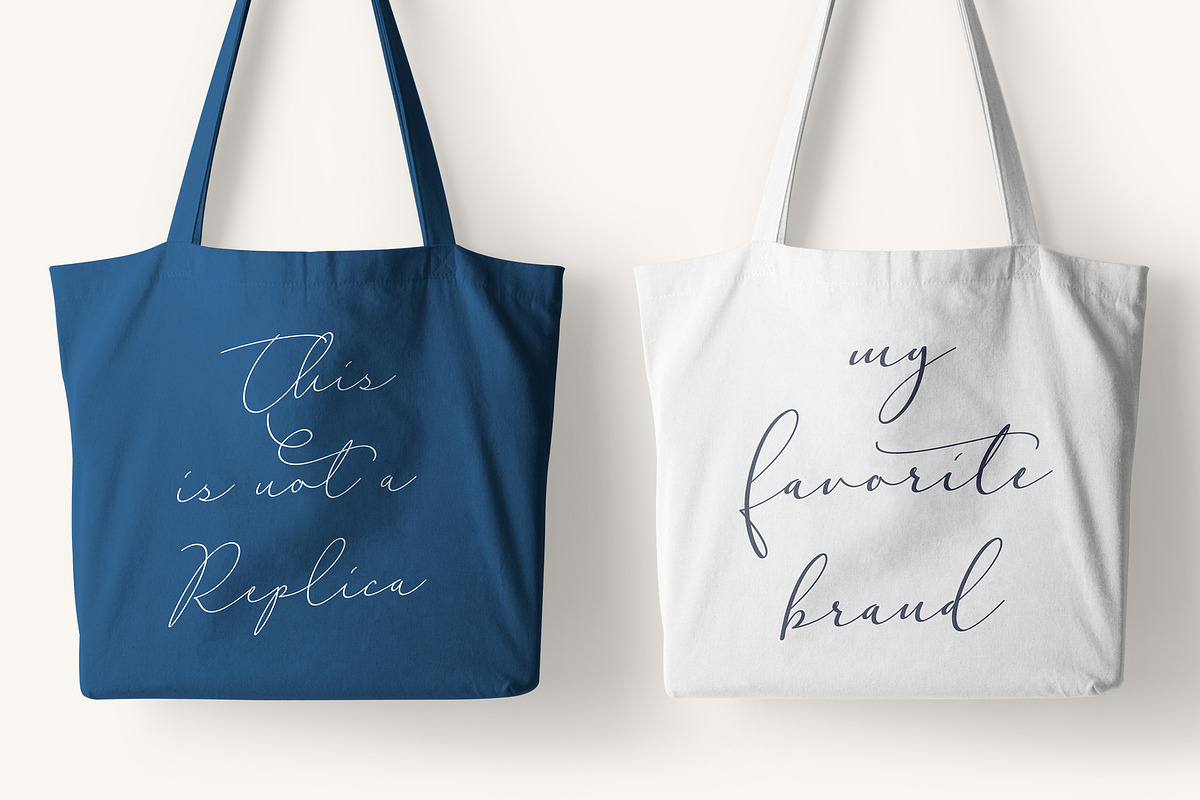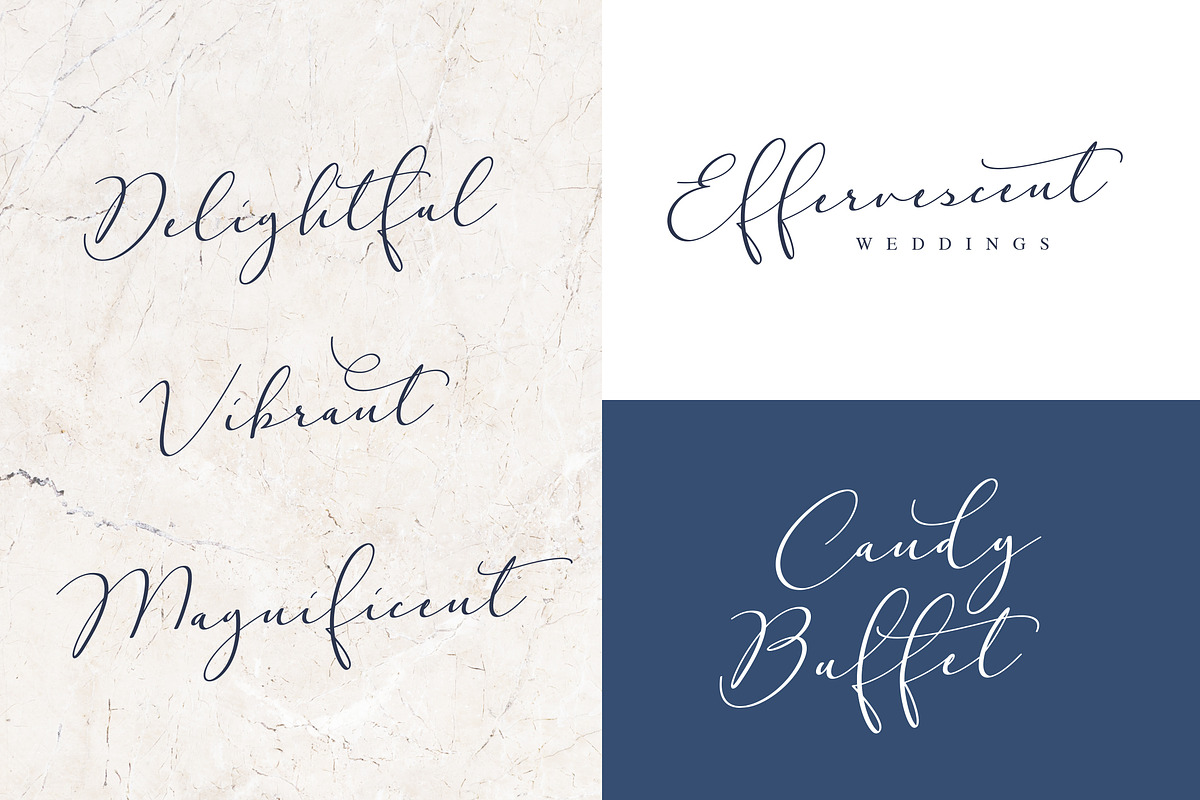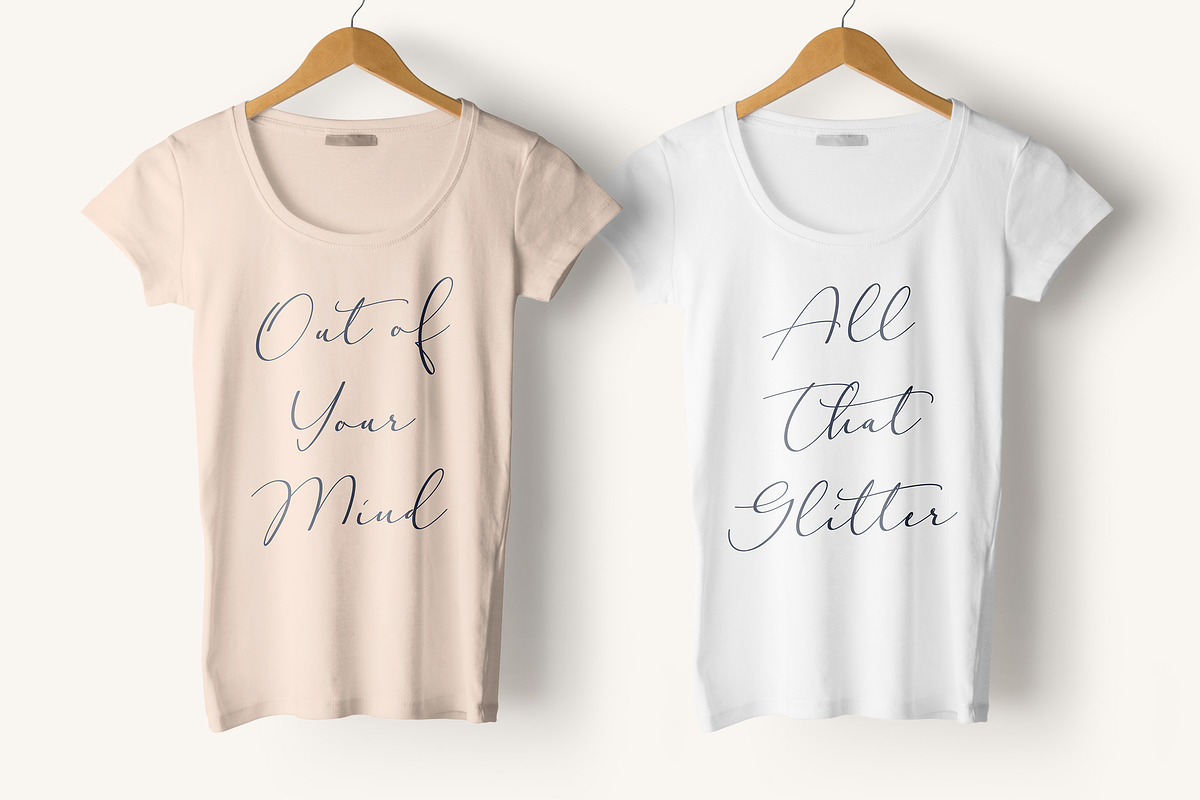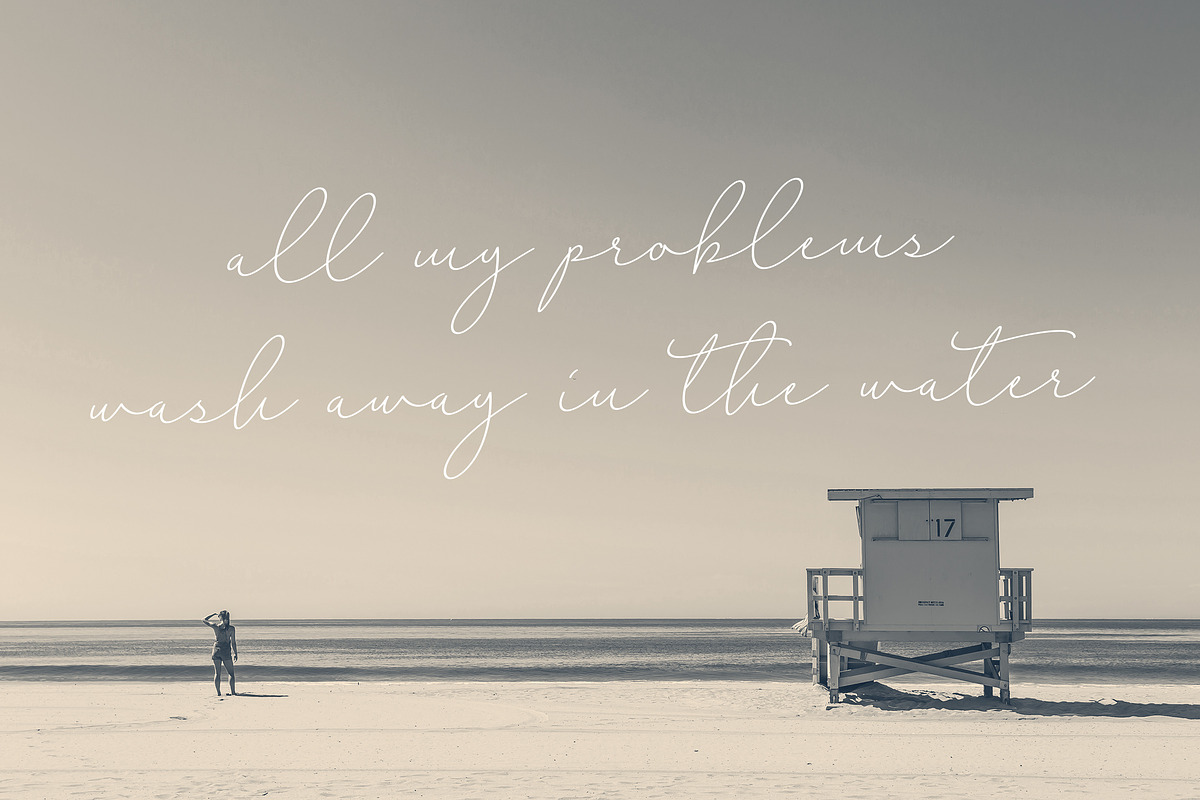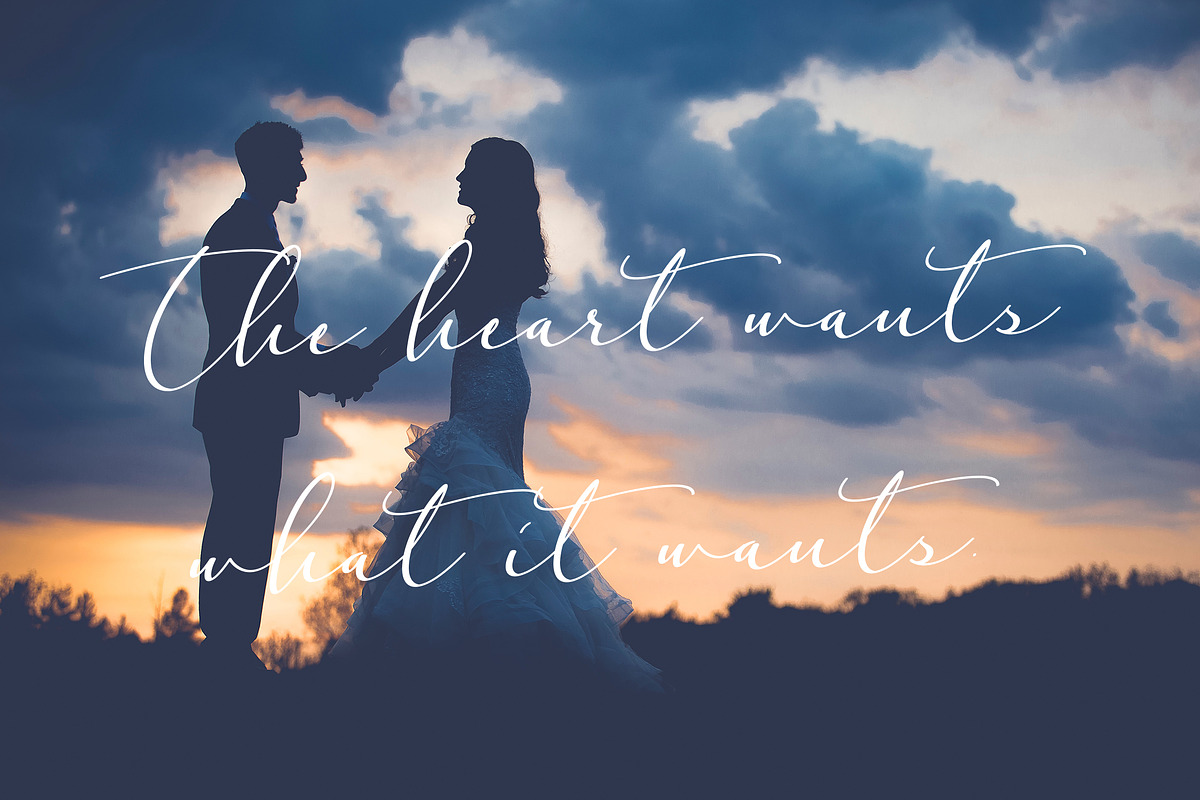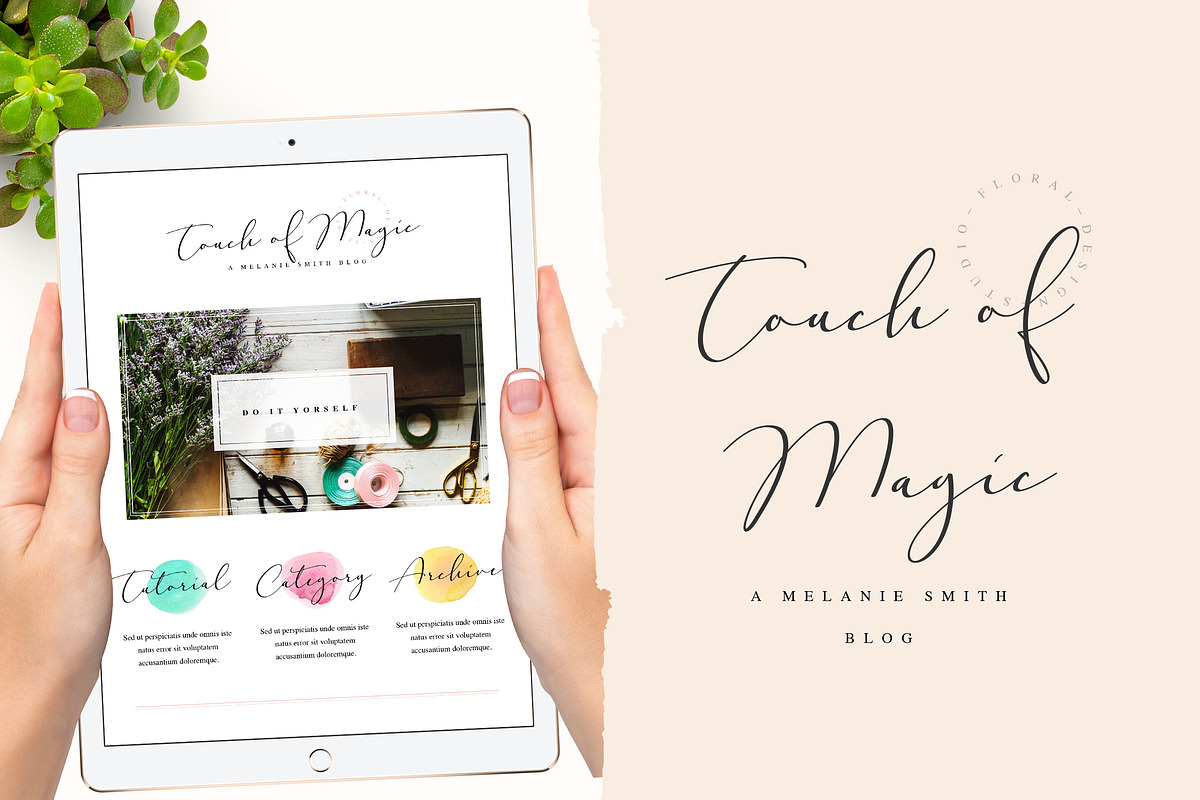
Adorable Handwritten Script Font
Adorable Handwritten Script Font is a modern and elegant handwritten font with a wide and right-slanted touch that makes it natural and pleasant. It's characteristic hand look style makes it perfect to use for logos, signatures, labels, packaging design, blog headlines or simply use it in your next design project.
Adorable comes in two weights, line and pressure, with upper and lowercase Basic Characters, Numbers, Marks and Punctuation. Diacritics are also available for Western and Central European Languages.